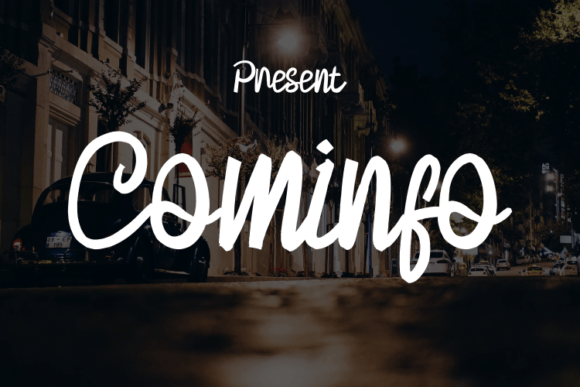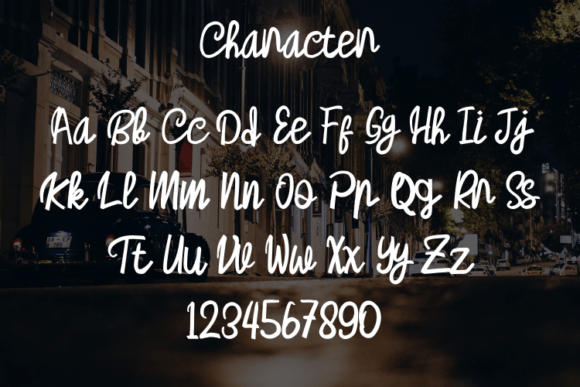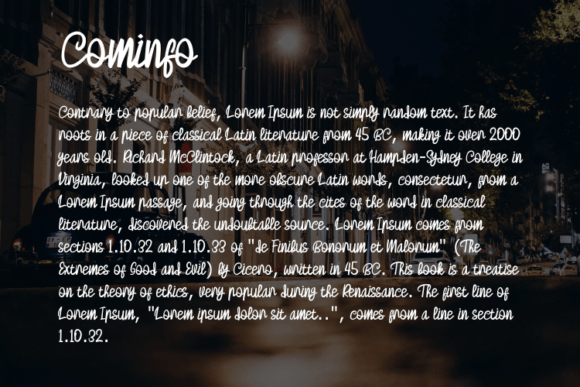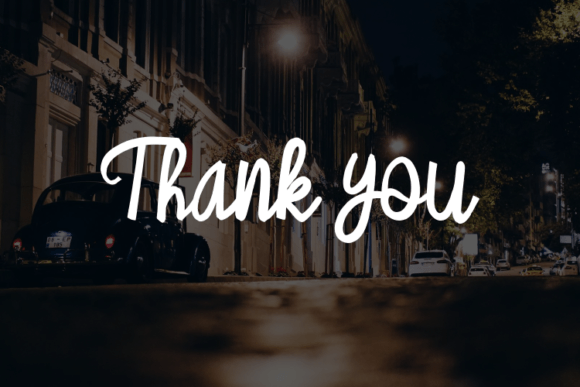
About Cominfo Font
Introducing “Cominfo,” a script typeface that blends simplicity with a modern look. This versatile font is perfect for a range of design applications, particularly excelling in elegant and luxurious contexts. Whether used for logos, book or movie design titles, fashion brands, magazines, clothing, fonts, quotes, and more, “Cominfo” offers a touch of sophistication to elevate your projects.
The simple and modern style of “Cominfo” makes it a versatile choice for various design needs. Its script design adds a fluid and elegant quality to the text, making it suitable for projects that require a contemporary and refined aesthetic.
In logo design, “Cominfo” becomes a standout typeface, especially for brands seeking an elegant and luxurious identity. Its script style adds a touch of sophistication and creates a visual language that resonates with a high-end audience.
For book or movie design titles, “Cominfo” brings a modern and stylish element. The script typeface enhances the visual storytelling aspect and sets the tone for an elegant and engaging reading or viewing experience.
In the fashion industry, “Cominfo” contributes to creating a luxurious and upscale brand identity. Whether used for clothing labels, magazine layouts, or fashion branding, this font adds a touch of glamour.
For magazines and quotes, “Cominfo” offers readability with a hint of flair. Its modern script design ensures that the content is accessible while providing an elegant and stylish typographic solution.
The adaptability of “Cominfo” extends to various creative design projects, including fonts, branding, and more. Its simple yet refined style makes it a versatile tool for designers looking to infuse elegance into their work.
In summary, “Cominfo” is a script typeface that strikes a balance between simplicity and modern elegance. Whether applied to logos, book or movie titles, fashion brands, magazines, or other design projects, it brings a touch of sophistication that enhances the overall visual appeal.